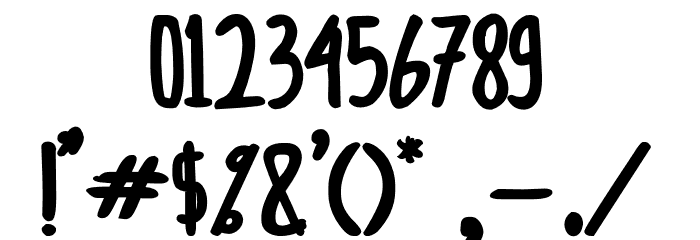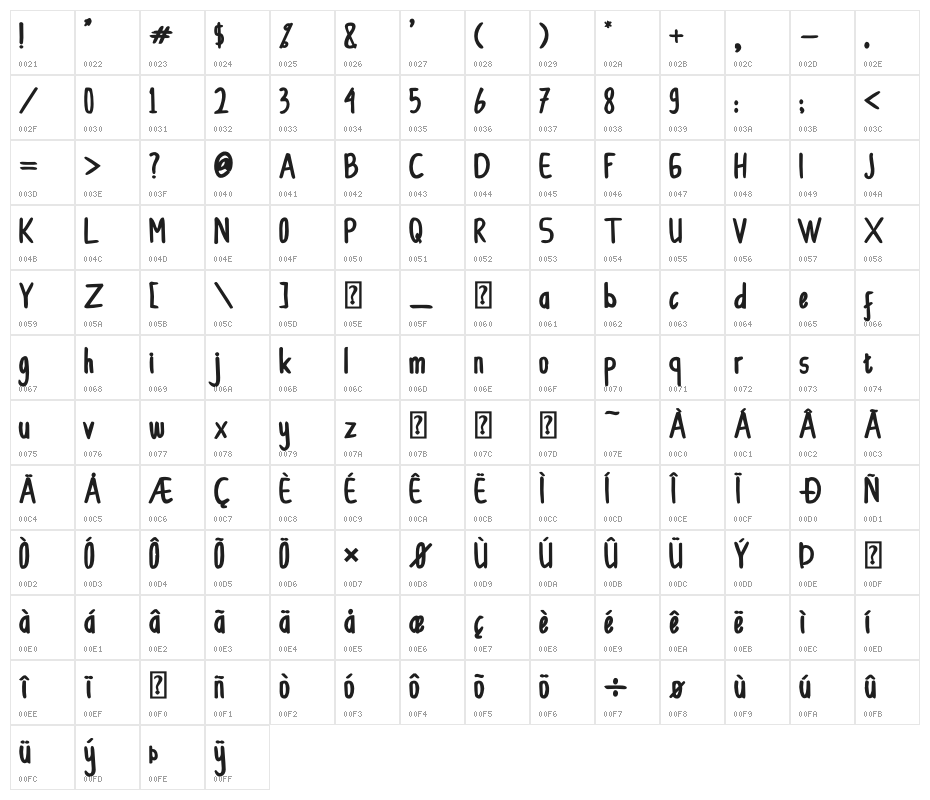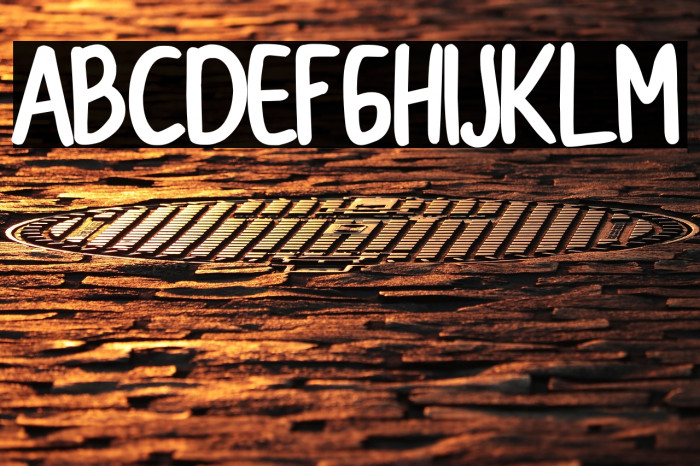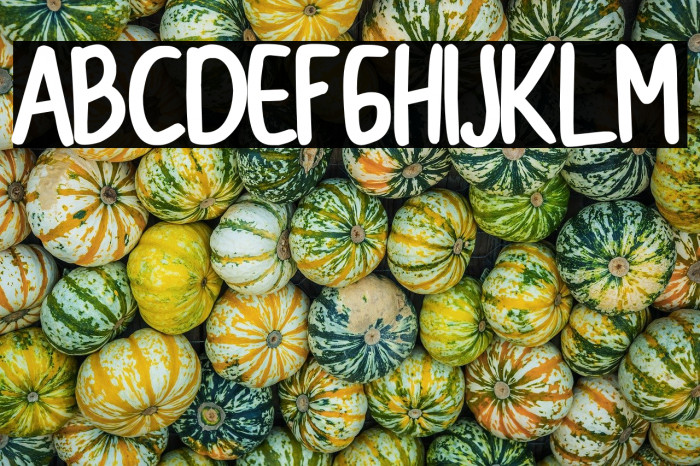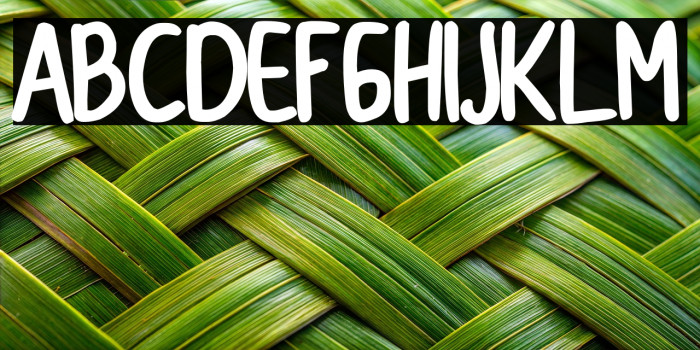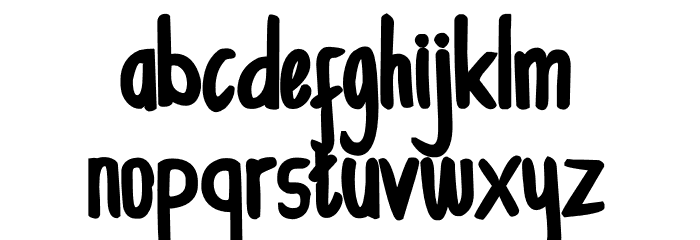
CollBesT Bold Font
CollBesT Bold Description
This font features a playful and bold handwritten style, characterized by its rounded and slightly irregular letterforms. The uppercase and lowercase letters maintain a consistent thickness, giving the font a cohesive and friendly appearance. The numbers and special characters follow the same design principles, ensuring uniformity across all characters. The overall look is casual and approachable, making it suitable for projects that require a personal touch. The font's boldness ensures readability while its unique style adds a touch of creativity.
Overall StylePlayful
Use CaseHeadlines, Logos, Informal Text
Proposed ProjectsIdeal for children's books, greeting cards, playful branding, and social media graphics.